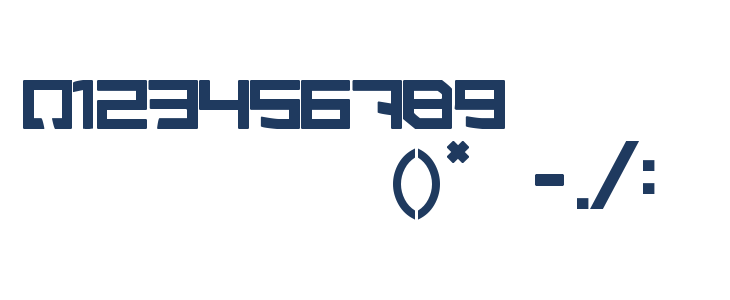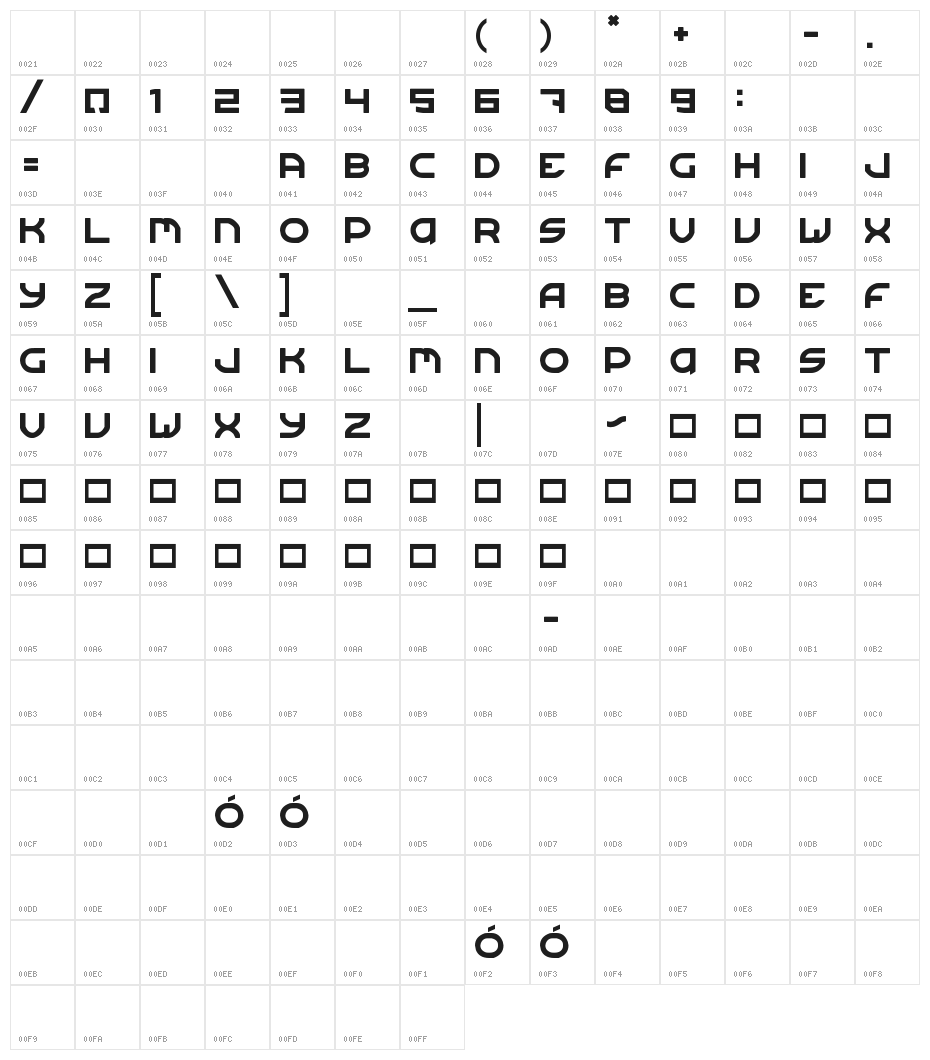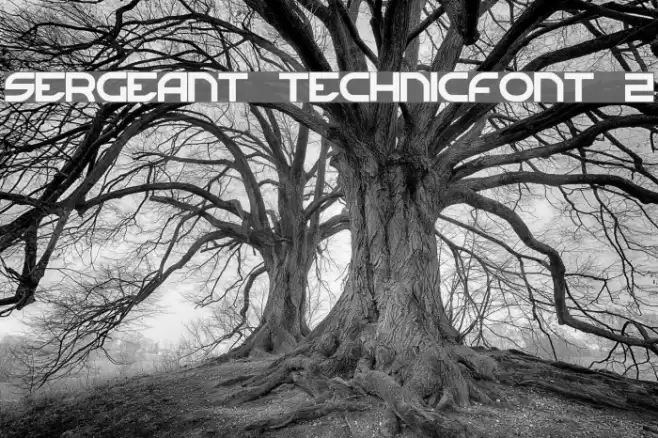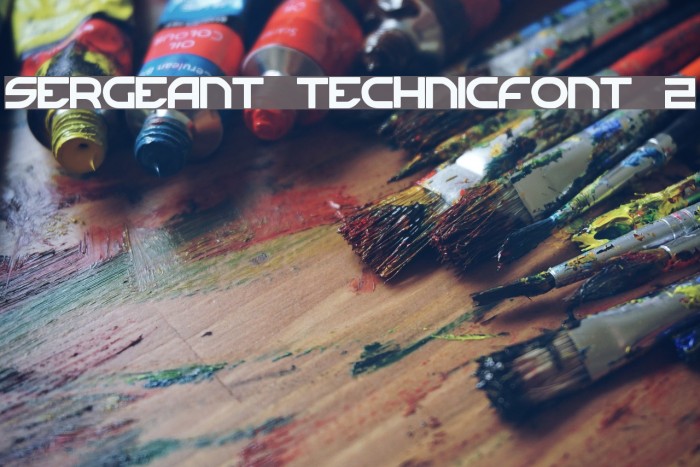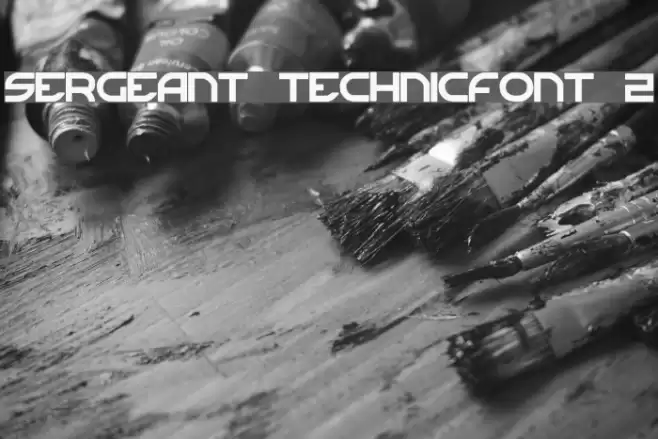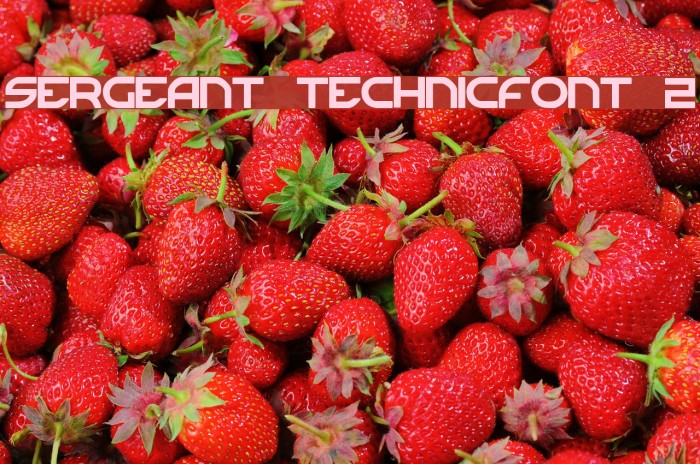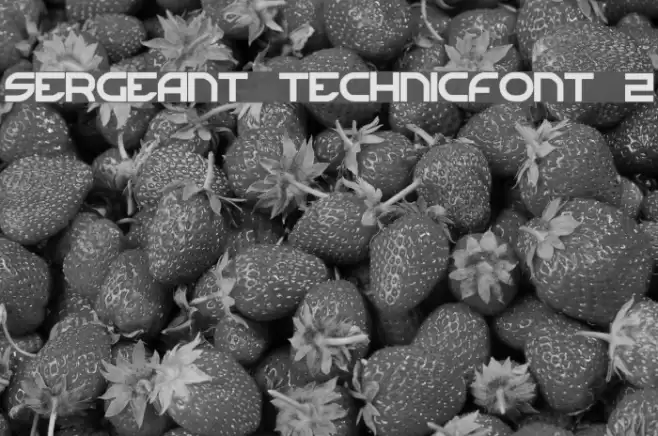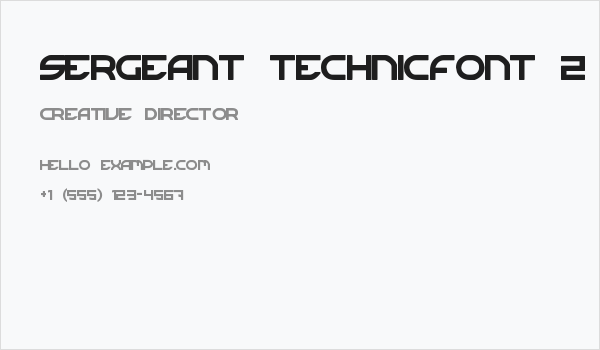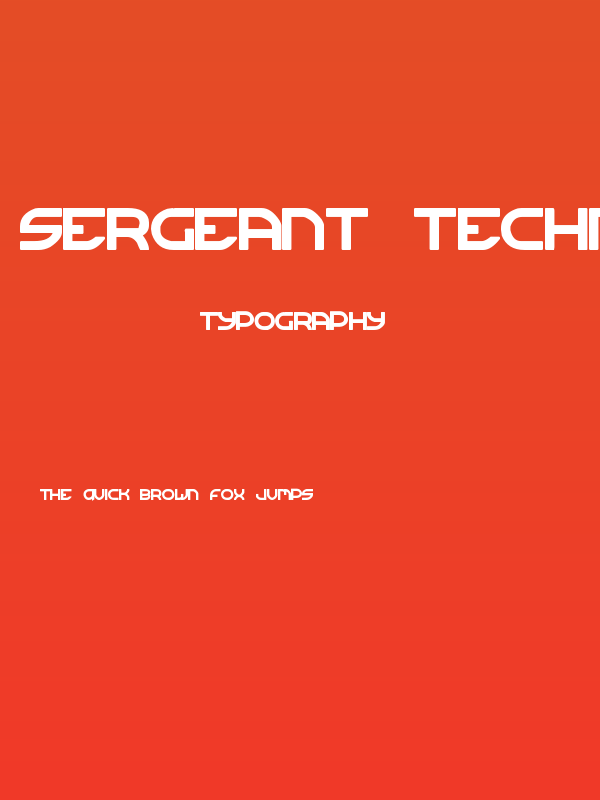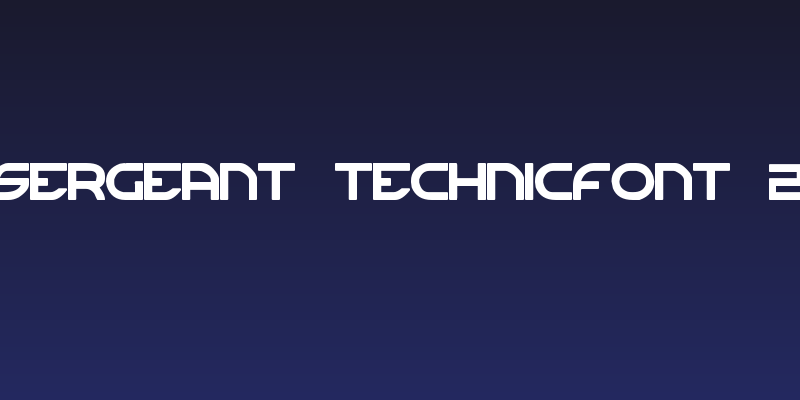
Sergeant TechnicFont 2 Font
Sergeant TechnicFont 2 Description
This font features a bold, geometric design with a futuristic and technical aesthetic. The characters are constructed with sharp angles and clean lines, giving it a modern and industrial feel. The uppercase and lowercase letters share a consistent style, with the lowercase maintaining a similar height to the uppercase, enhancing its uniformity. The numerals are equally bold and angular, complementing the overall design. Special characters are designed to match the font's technical theme, making it suitable for projects that require a strong, impactful look.
| Proposed Projects | Ideal for technology branding, video game titles, sci-fi themed projects, and modern posters. |